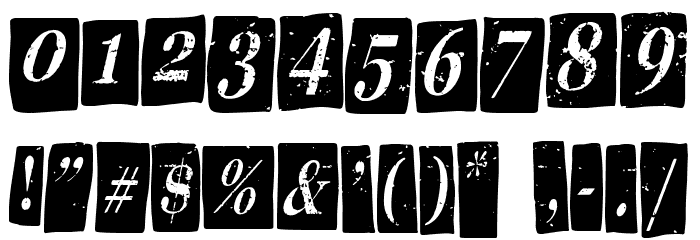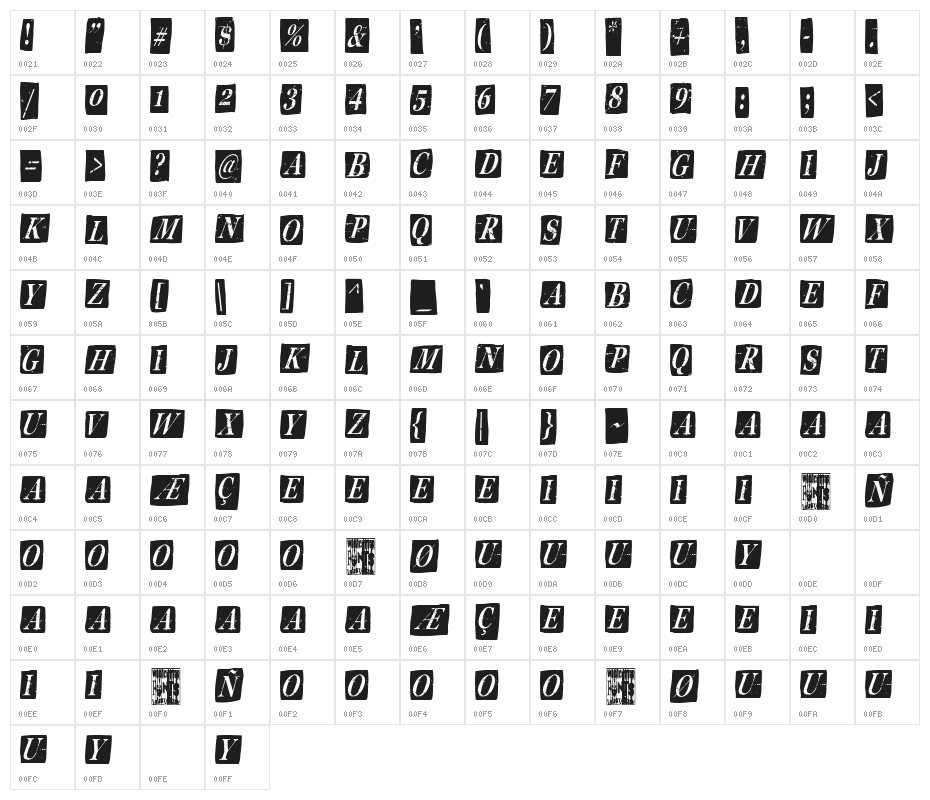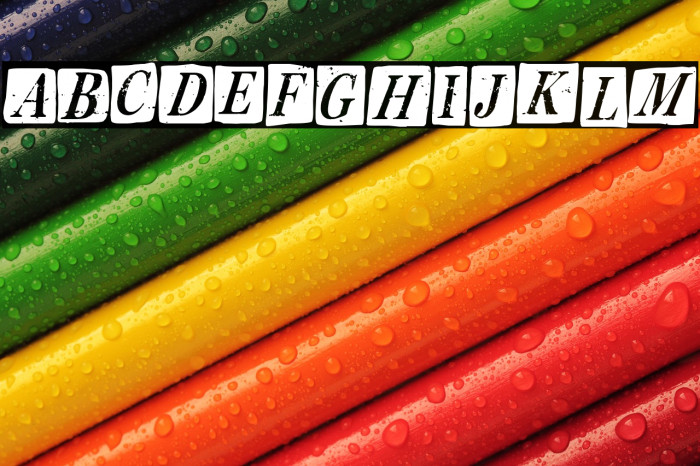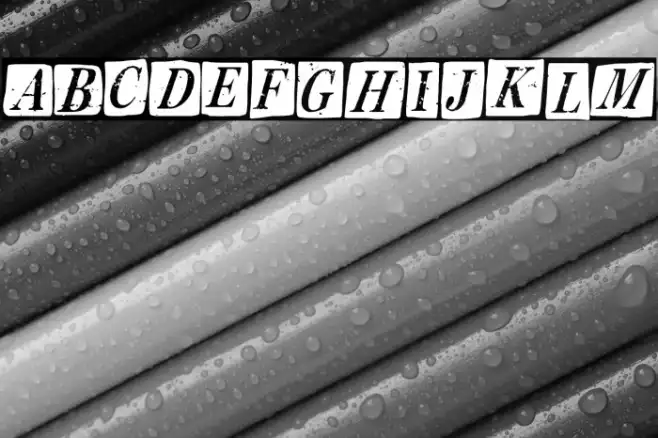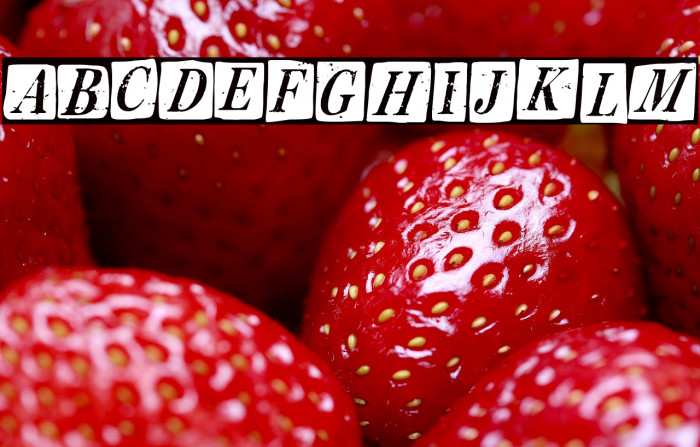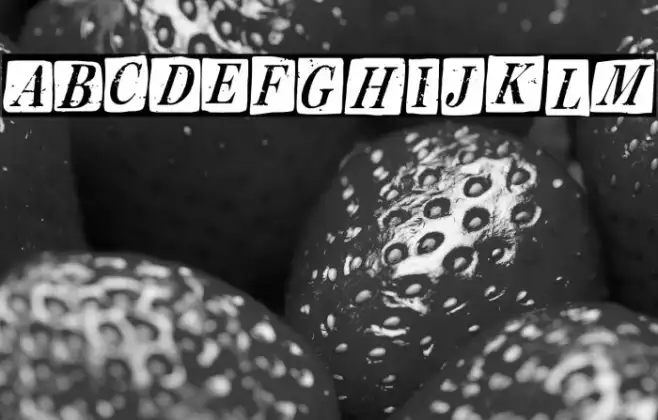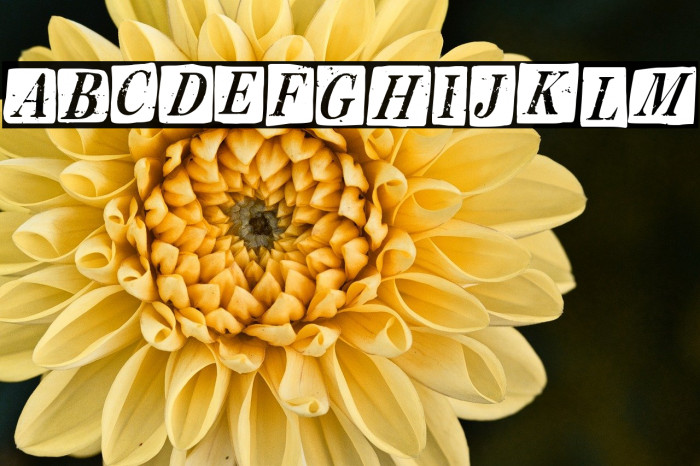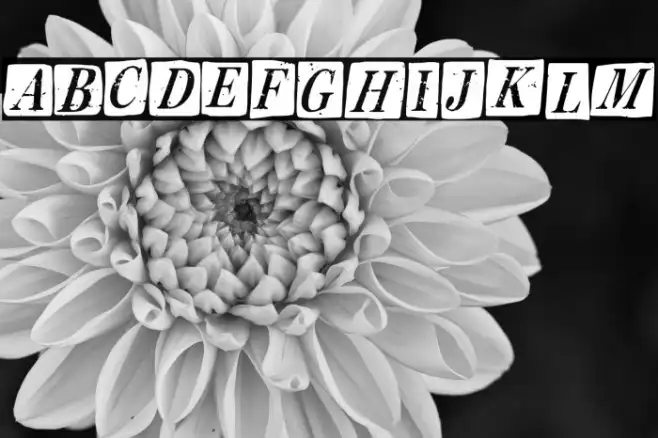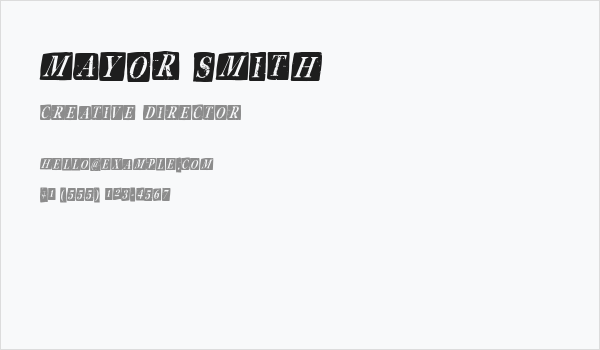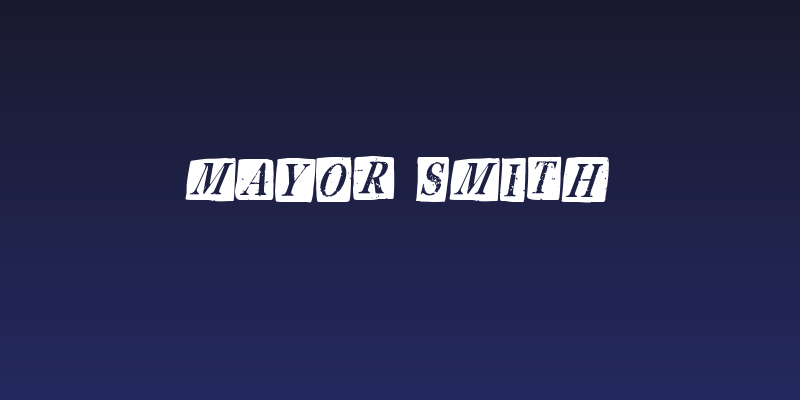
Mayor Smith Font
Mayor Smith Description
This font features a bold and distressed style, with each character enclosed in a rough, rectangular block. The letters have a vintage, worn-out appearance, reminiscent of old typewriter keys or stamped impressions. The uppercase and lowercase letters maintain a consistent design, with slight variations in texture that add to the overall rugged aesthetic. The numbers and special characters follow the same theme, ensuring a cohesive look across all elements. This font's unique style makes it stand out, offering a blend of nostalgia and boldness.
Overall StyleVintage
Proposed ProjectsIdeal for vintage-themed posters, album covers, branding for rustic products, or any project requiring a bold, retro aesthetic.